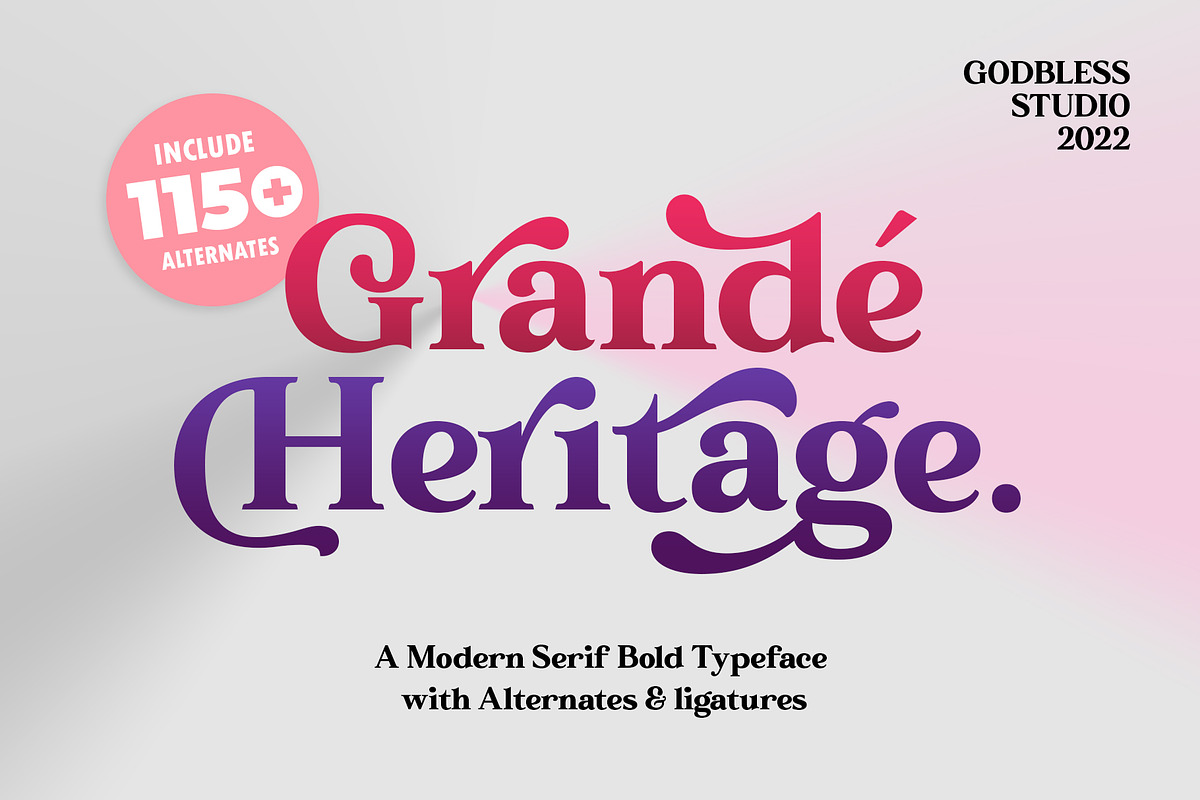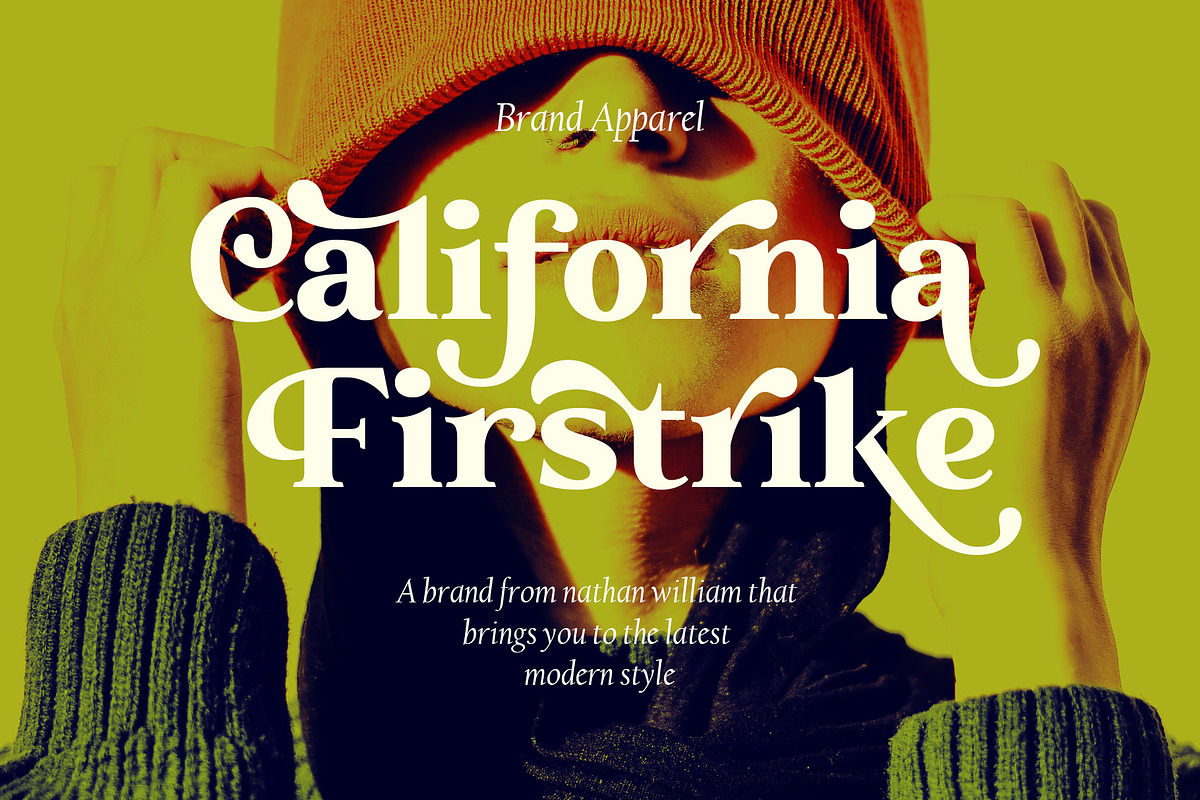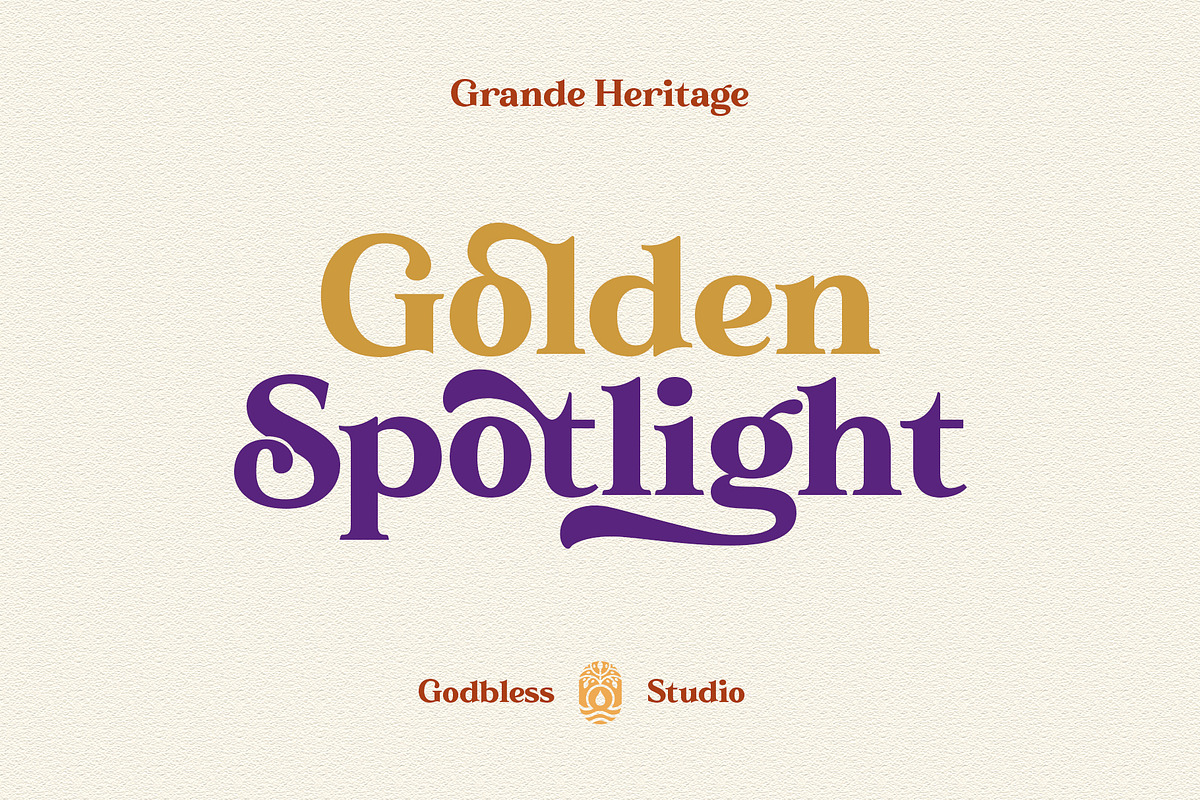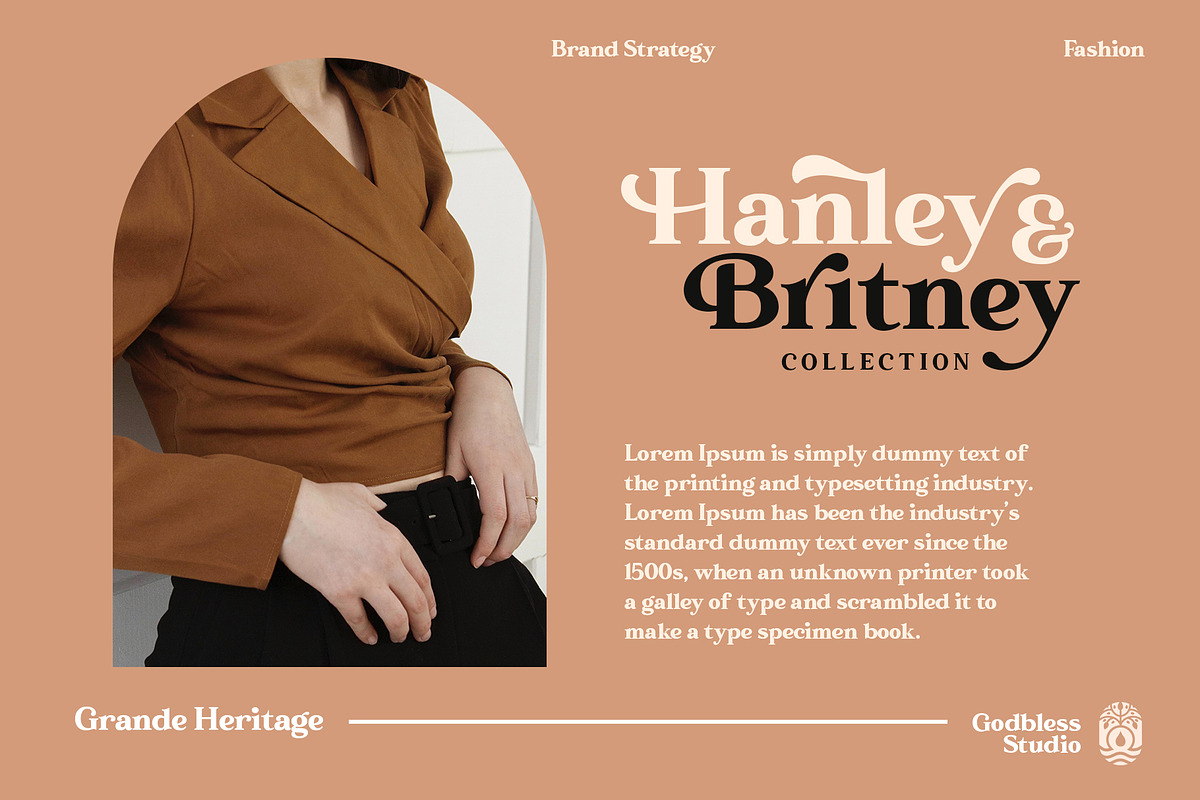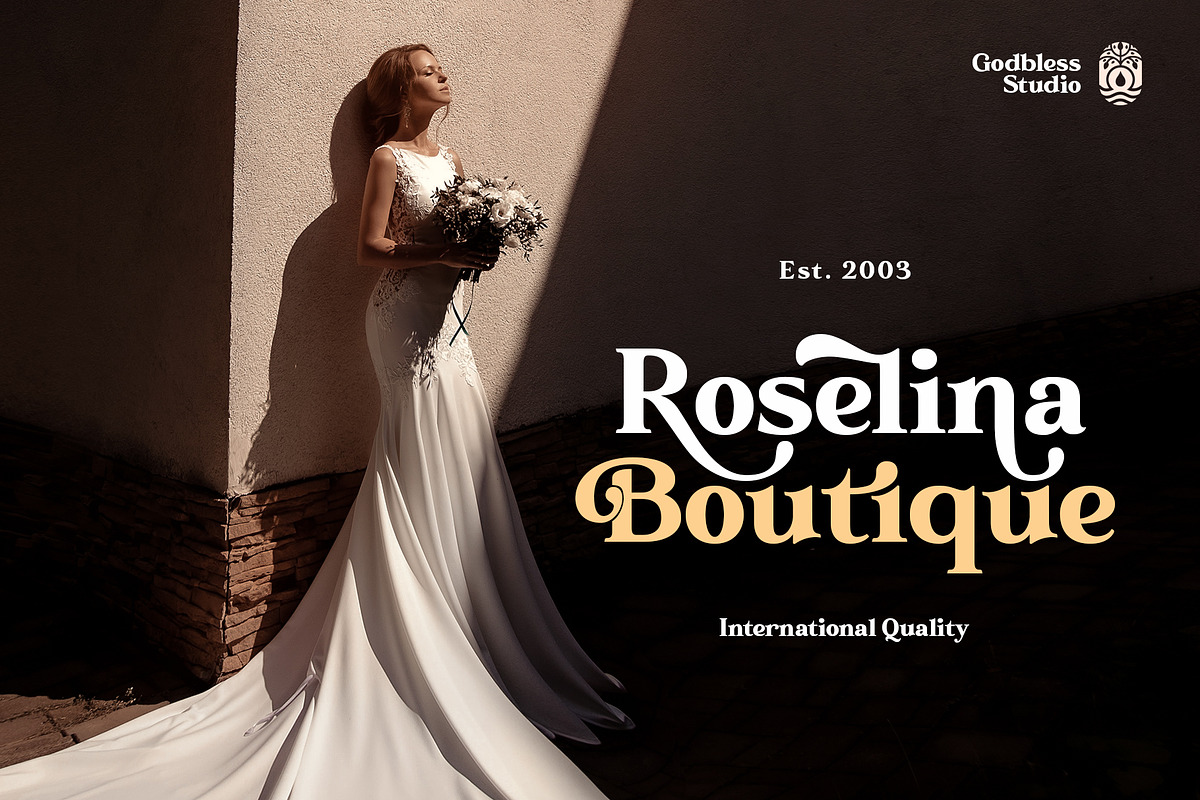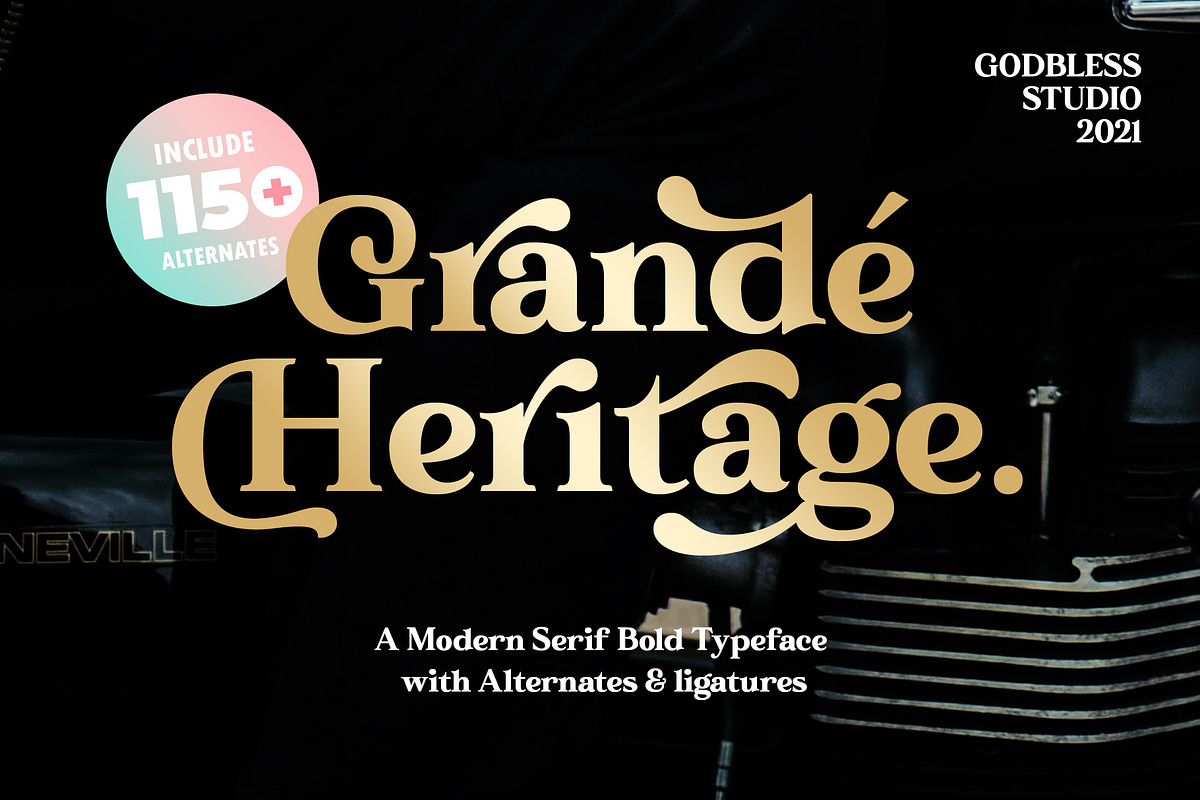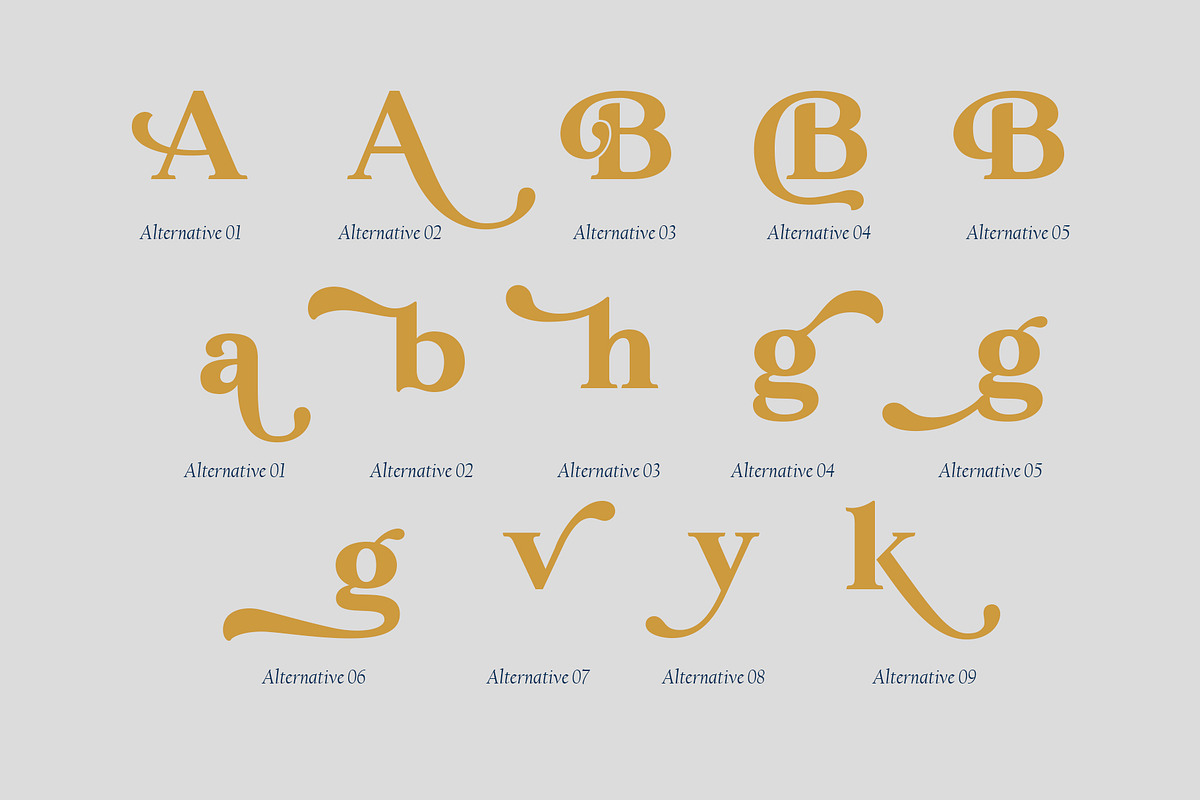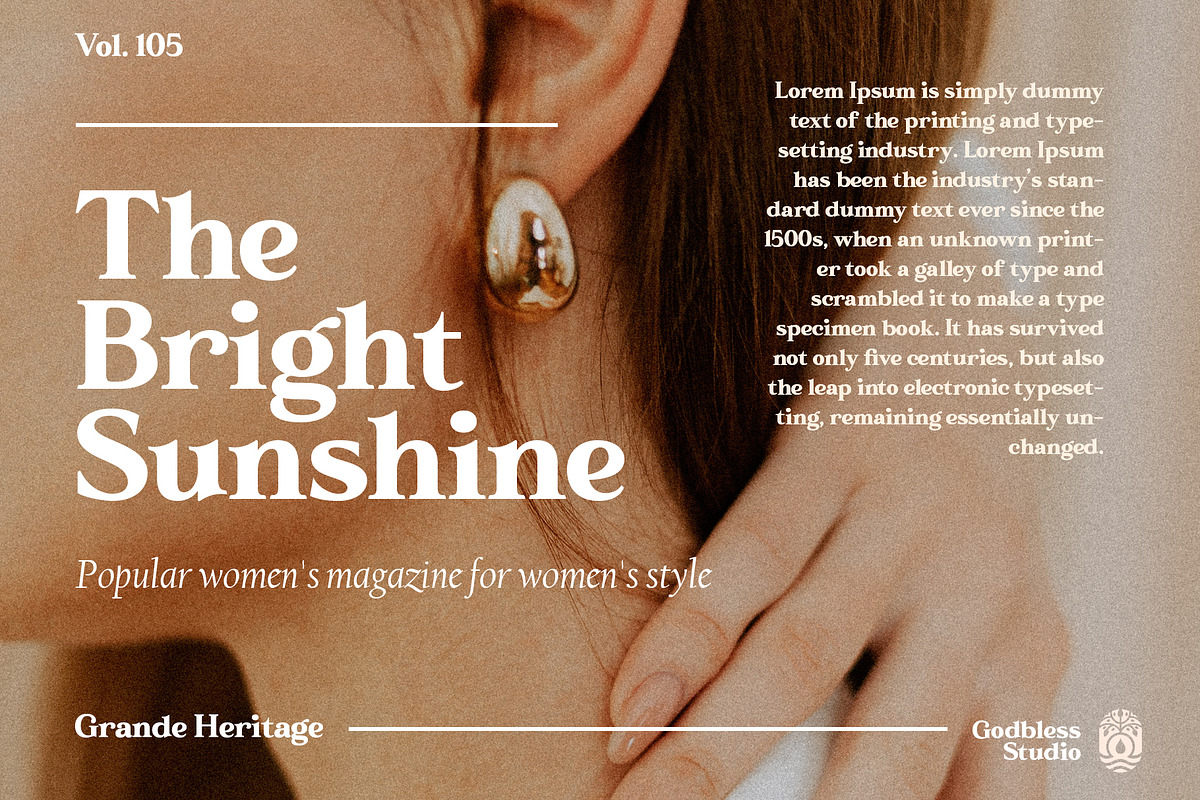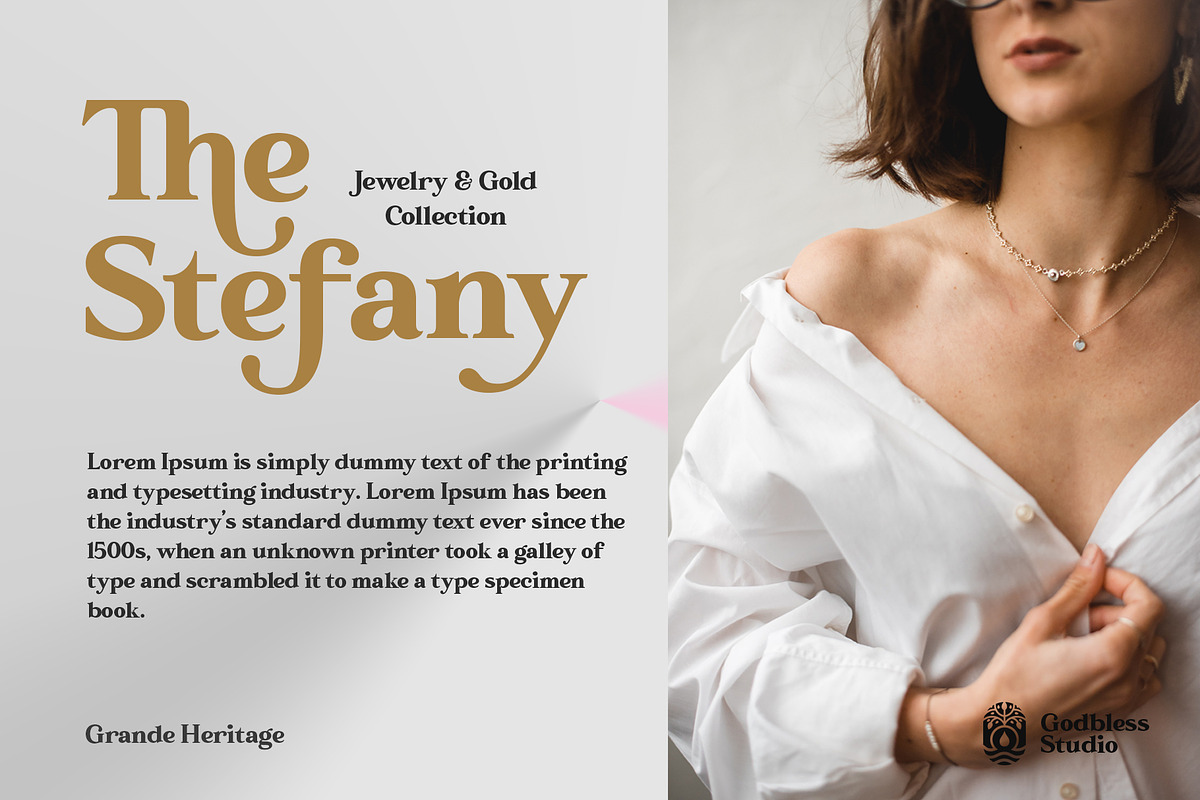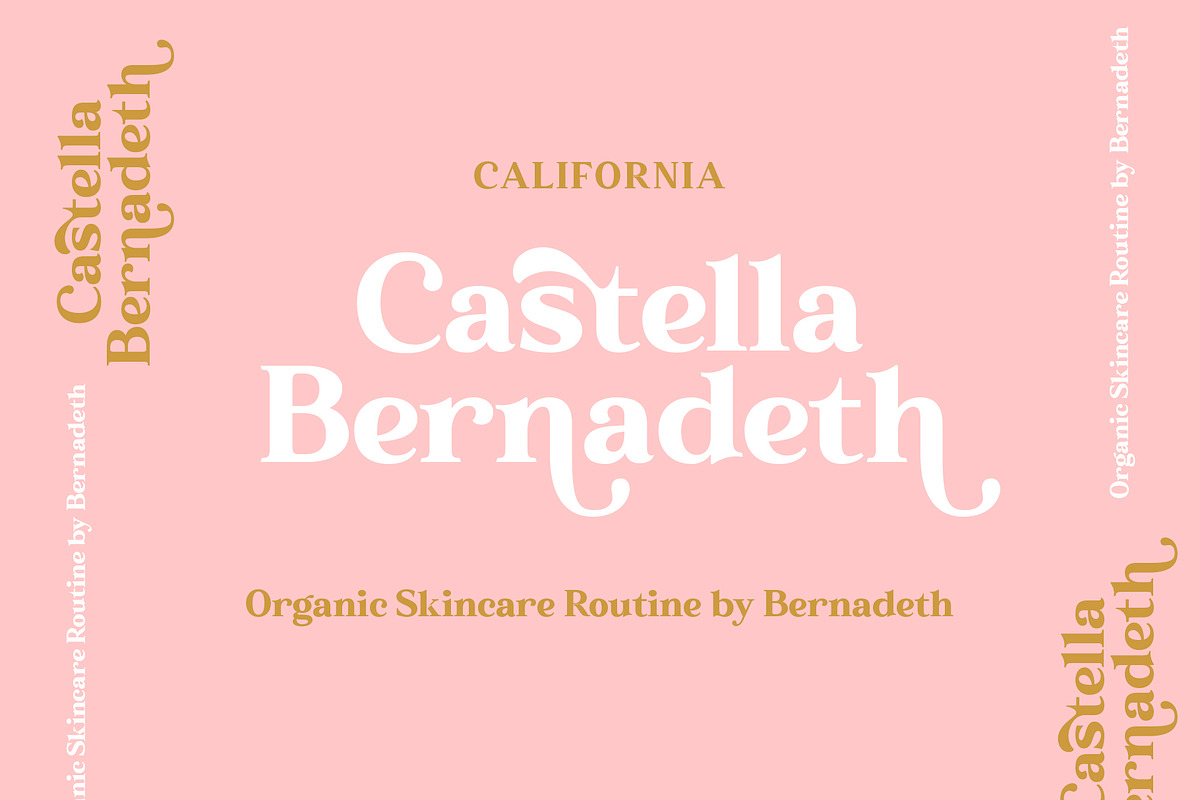
Grande Heritage
Grande Heritage is a very versatile font, unique modern serif bold typeface with loads of style font that uses ligatures and many alternates. You will get classy, elegant, and certainly unique logos with this font. it is perfect for handling design jobs that cover a wide range of types such as elegant projects, luxurious branding, wedding invitations, poster design and so on.
Grande Heritage is also included full set of: